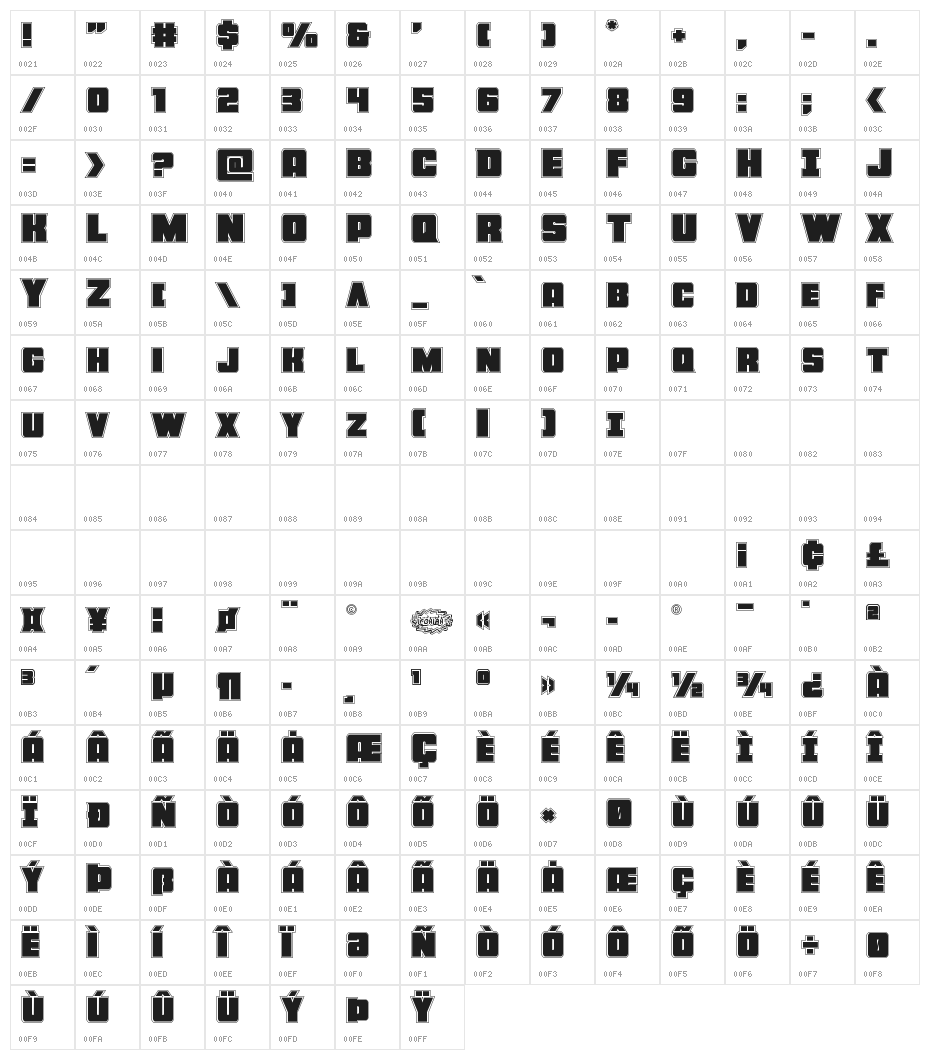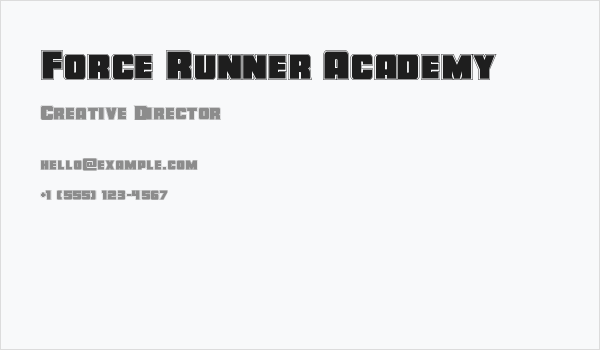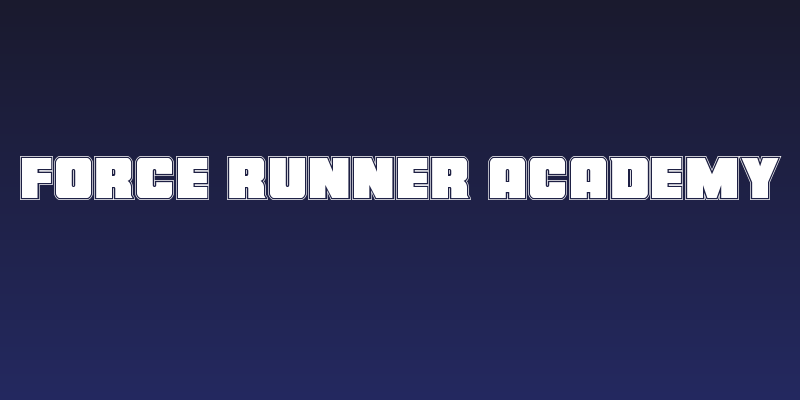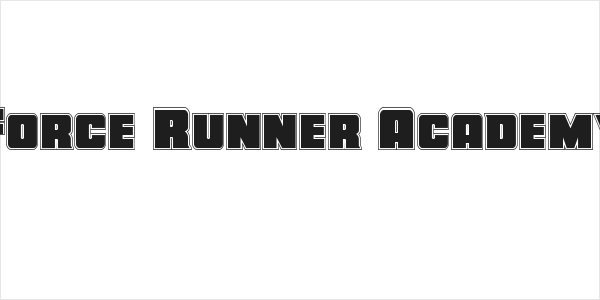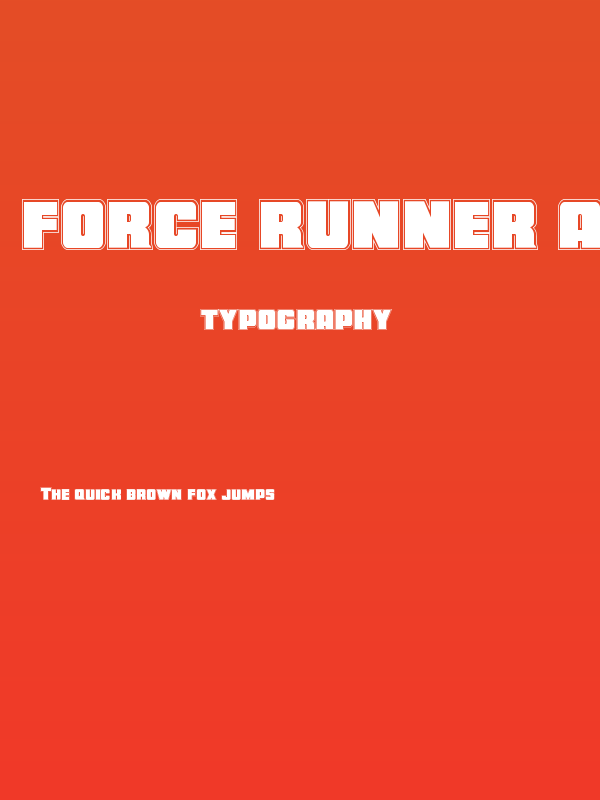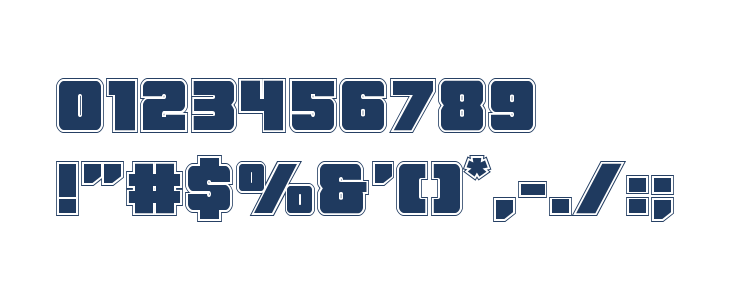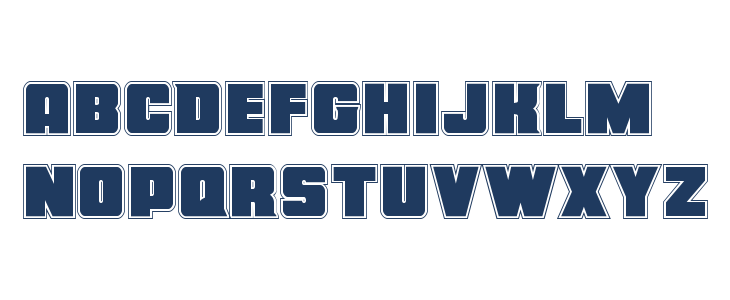
Force Runner Academy Font
Force Runner Academy Description
This font features a bold, blocky design with a strong presence. The characters are outlined with a thick border, giving them a three-dimensional appearance. The uppercase letters are uniform in height and width, creating a cohesive and structured look. The numerals and special characters maintain the same bold style, ensuring consistency across all glyphs. This font is ideal for projects that require a strong visual impact, such as sports branding or event posters.
| Proposed Projects | Ideal for sports branding, event posters, and headlines that require a strong visual impact. |